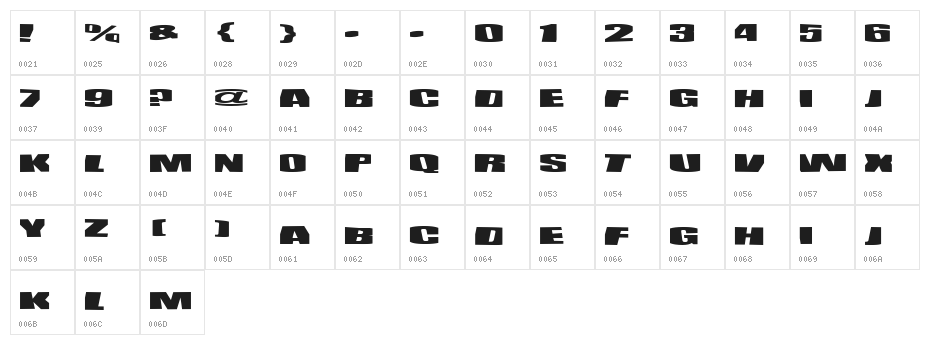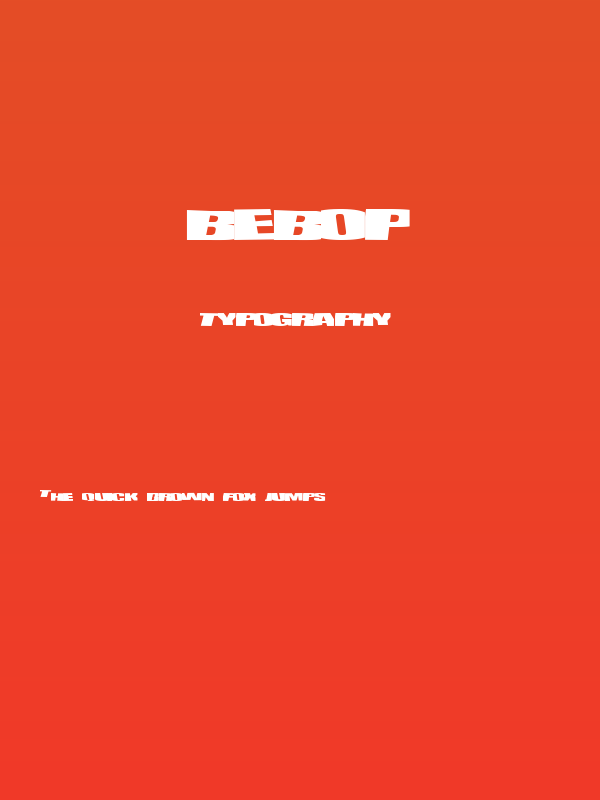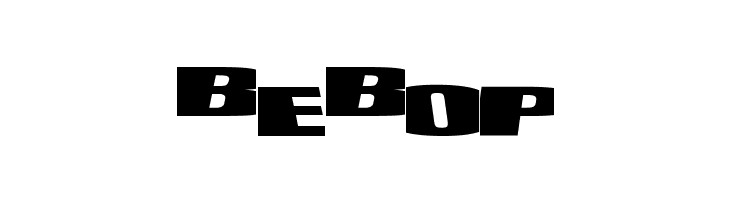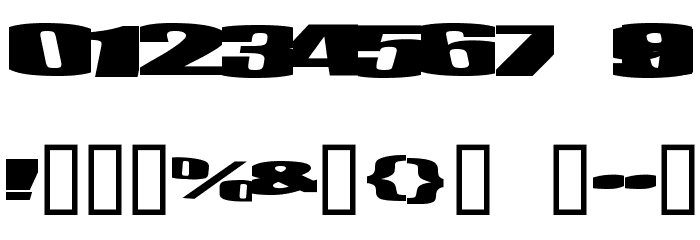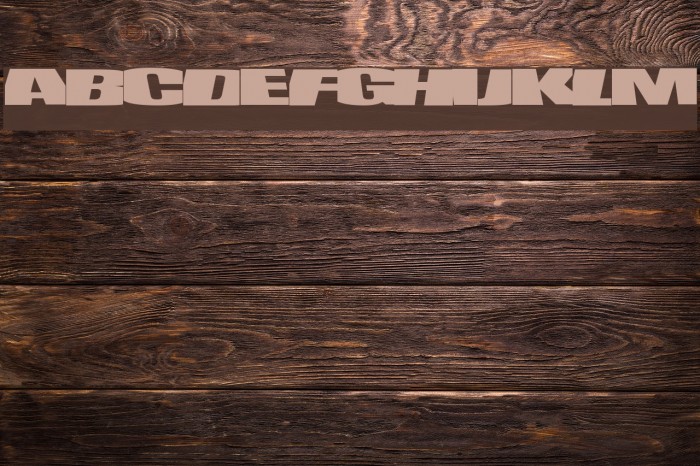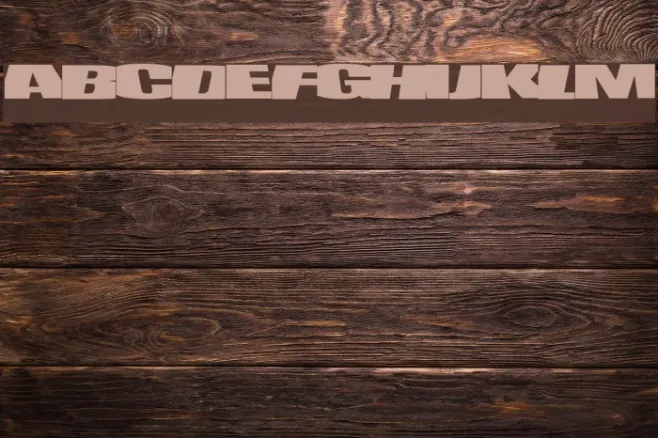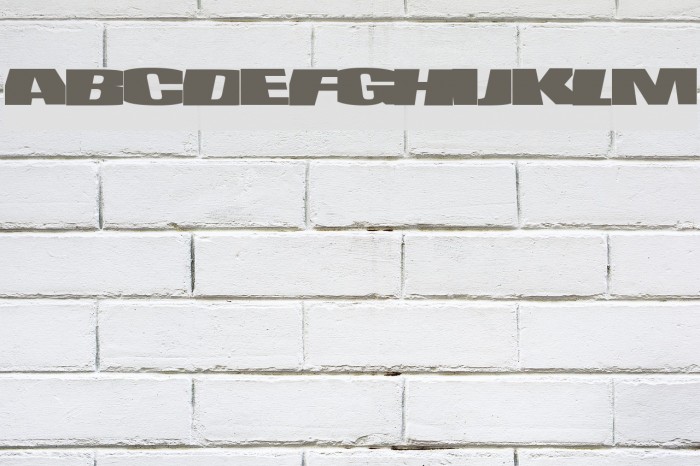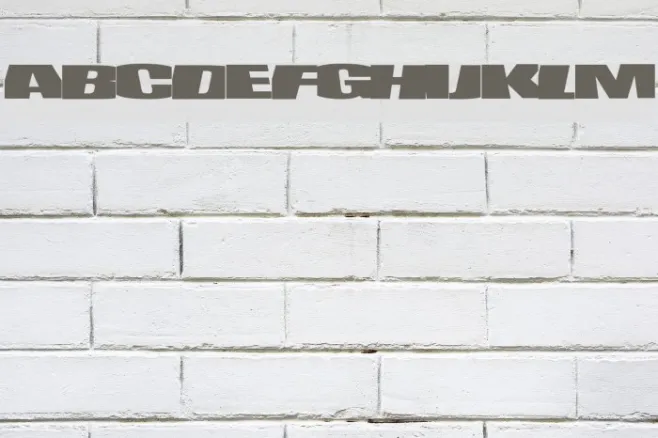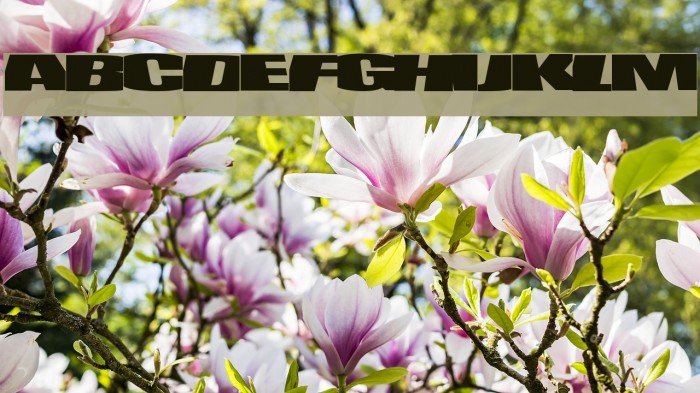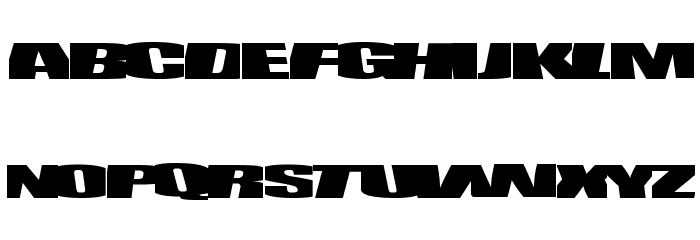
BeBop Font
BeBop Description
This font features a bold and dynamic style with a strong presence. The characters are heavily stylized with a blocky, geometric design that gives them a modern and futuristic appearance. The uppercase and lowercase letters maintain a consistent weight, contributing to a cohesive look. The numbers and special characters follow the same design principles, ensuring uniformity across all glyphs. The font's boldness and unique style make it stand out, making it suitable for attention-grabbing applications.
| Proposed Projects | Ideal for posters, headlines, branding, and any project requiring a strong visual impact. |